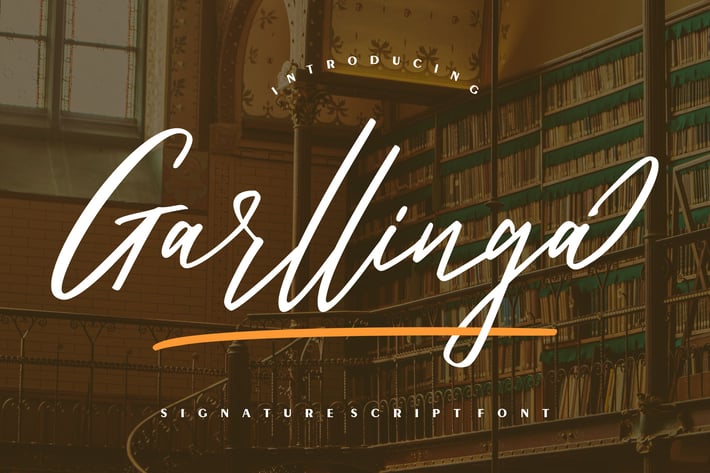
Garllinga | Signature Script Font
Garllinga | Signature Script Font with a calligraphy style, So beautiful on invitation like greeting cards, branding materials, business cards, quotes, posters, and more!